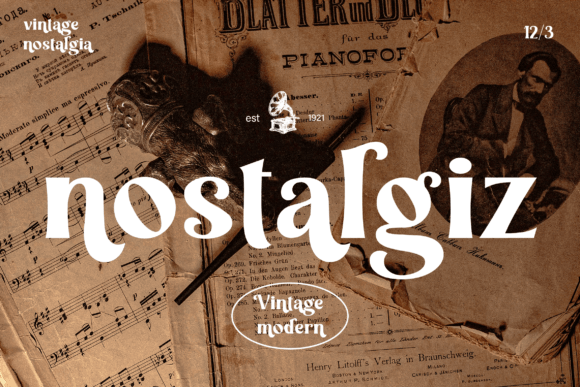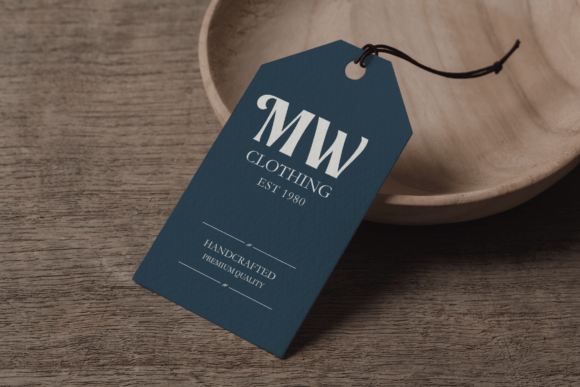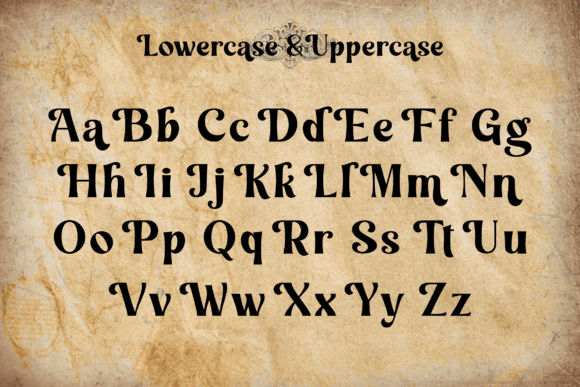
Nostalgiz: A Vintage Modern Font with Retro Charm
Nostalgiz is a vintage modern font that brings a touch of retro charm to your designs. Whether you’re creating presentations, ads, social media campaigns, or merchandise, this unique typeface can elevate your brand’s visual appeal with its nostalgic yet contemporary style.
Key Features of Nostalgiz
- Vintage Design: Offers a retro look with modern sensibilities.
- Versatile Application: Suitable for various design projects across different media.
- Brand-Enhancing: Can significantly impact how people perceive your brand.
- Unique Character: Stands out with its distinctive vintage-inspired style.
Ideal Uses for Nostalgiz
Nostalgiz’s unique characteristics make it particularly well-suited for:
- Retro-inspired presentations and slideshows
- Vintage-style advertising campaigns
- Social media graphics with a nostalgic touch
- Merchandise design for a retro brand image
- Website headers for vintage-themed sites
- Packaging design for products with a nostalgic appeal
- Logo creation for brands aiming for a vintage look
When incorporating Nostalgiz into your designs, consider these tips:
- Use for headlines or short blocks of text to showcase its vintage style.
- Experiment with different sizes to highlight the font’s unique features.
- Consider pairing with modern sans-serif fonts for body text to create contrast.
- Utilize its retro charm to create designs that evoke nostalgia and warmth.
Nostalgiz is an excellent choice for designers looking to add a touch of vintage charm to their modern designs. Its ability to blend retro aesthetics with contemporary sensibilities makes it stand out in the world of typography. Whether you’re working on branding materials, creating social media content, or developing advertising campaigns that require a nostalgic touch, Nostalgiz offers the perfect blend of old-school cool and modern versatility.
Furthermore, Nostalgiz’s unique design allows it to shine in various contexts where a vintage look is desired. From presentation slides to merchandise designs, this font can elevate your projects with its distinctive style. Its retro yet readable appearance works particularly well in designs that aim to evoke a sense of nostalgia while maintaining a contemporary edge.
In conclusion, Nostalgiz is a font that truly captures the essence of vintage charm in modern typography. Its versatility across different applications showcases its adaptability to various creative needs. For those looking to add a touch of retro flair to their work, Nostalgiz can enhance themed creations with its distinctive style. It’s the perfect choice for designers seeking to make a nostalgic, stylish impact across a wide range of creative projects.